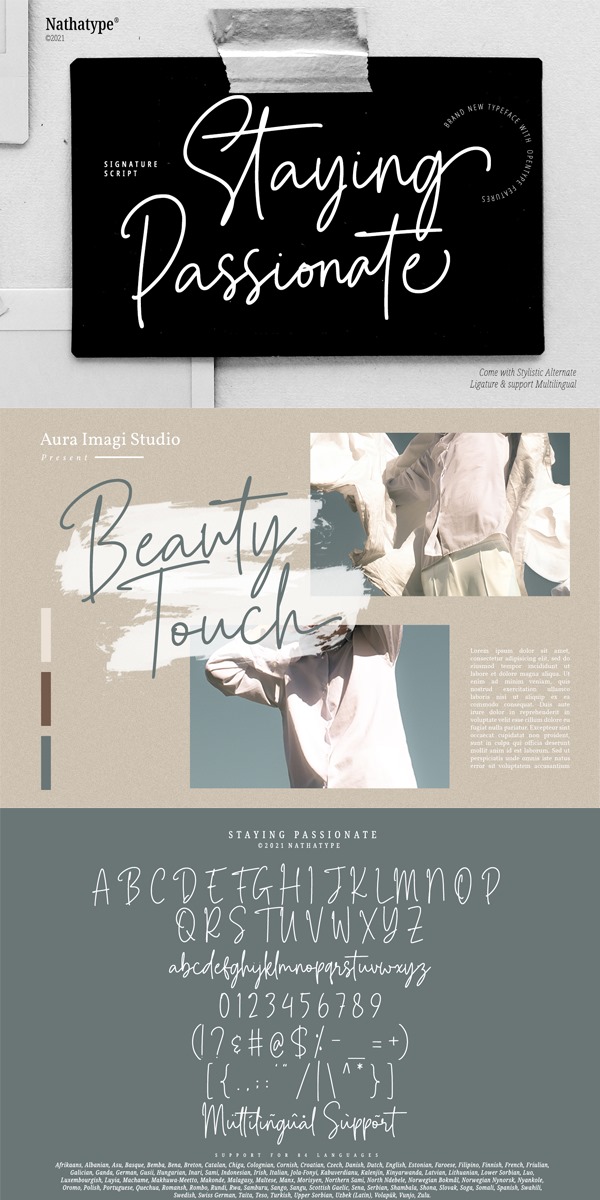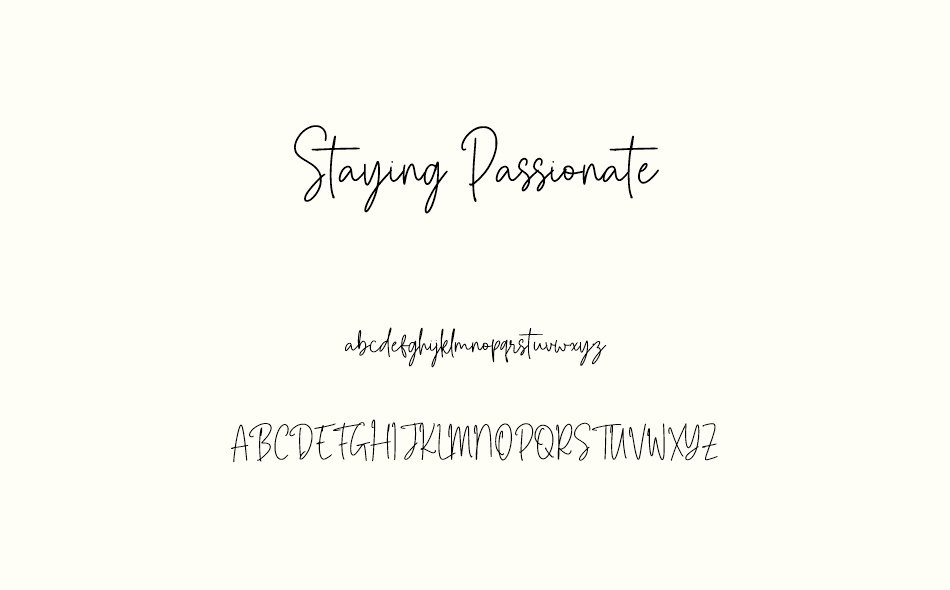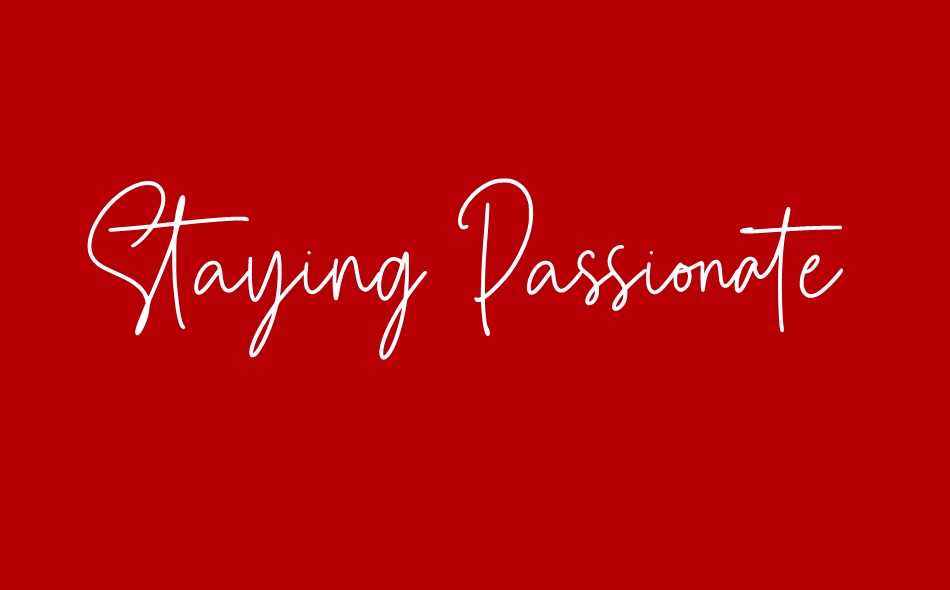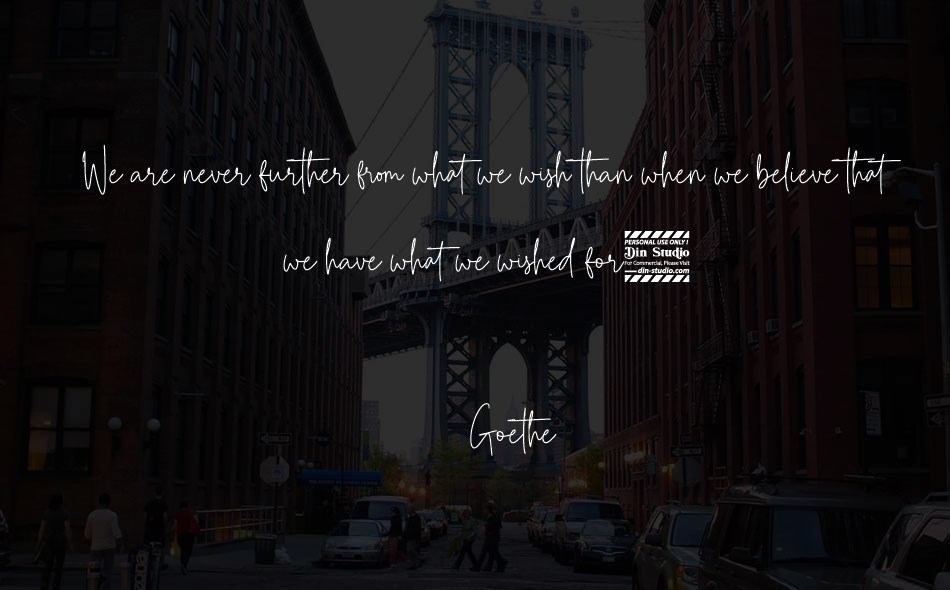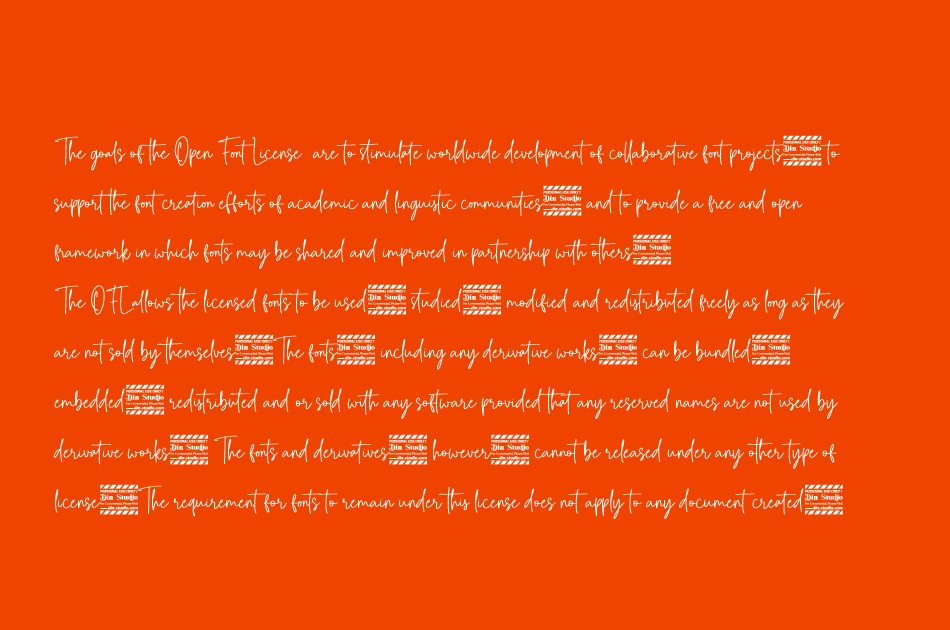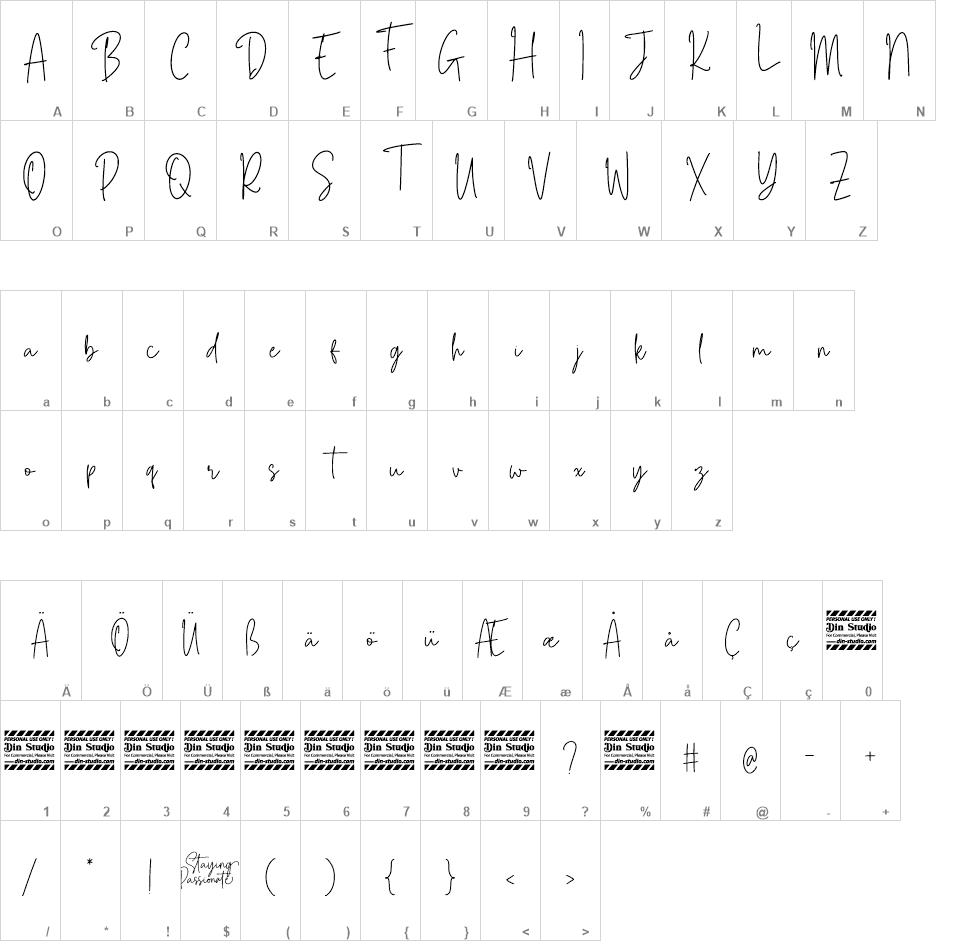
Staying Passionate font
Staying Passionate A Script Font
A beautifully handcrafted font thatll make your guests sing and elevate your projects! Every stroke, and curve was created to entice happiness and elegance. Use it to create standout headings, promote your online sales, Instagram quotes, and even printed materials like business cards, t-shirts, or invitations.
Staying Passionate – A Script Font
A beautifully handcrafted font that’ll make your guests sing and elevate your projects! Every stroke, and curve
was created to entice happiness and elegance. Use it to create standout headings, promote your online sales,
Instagram quotes, and even printed materials like business cards, t-shirts, or invitations.
Staying Passionate font includes Multilingual Options to make your branding globally acceptable.
Features :
• Standard Ligatures
• Stylistic Sets
• Multilingual Support
• PUA Encoded